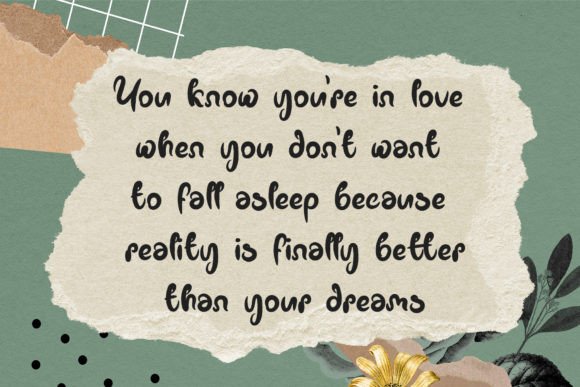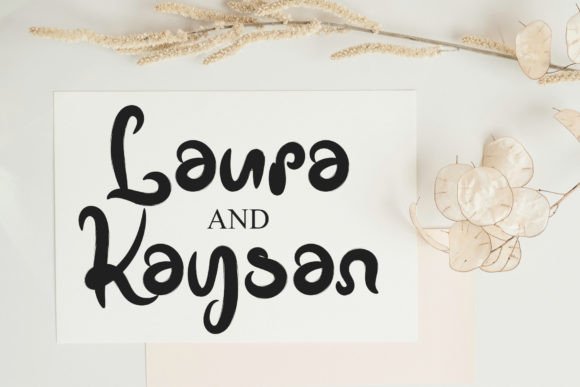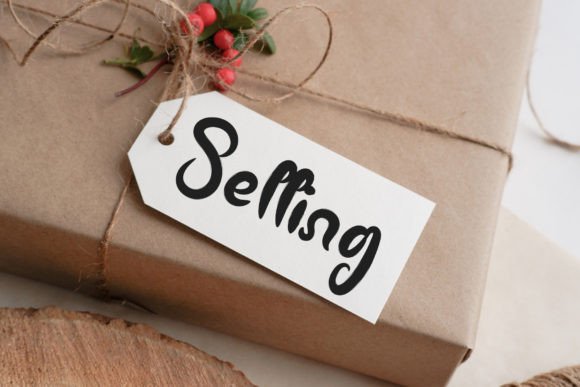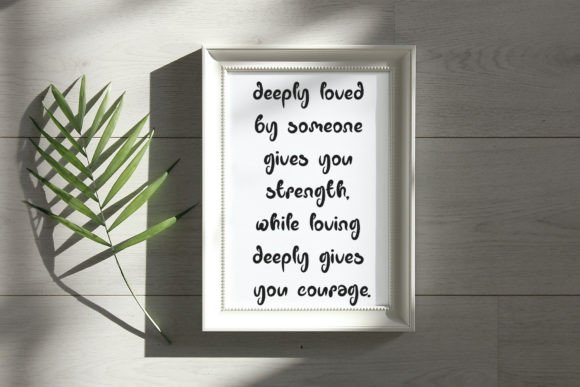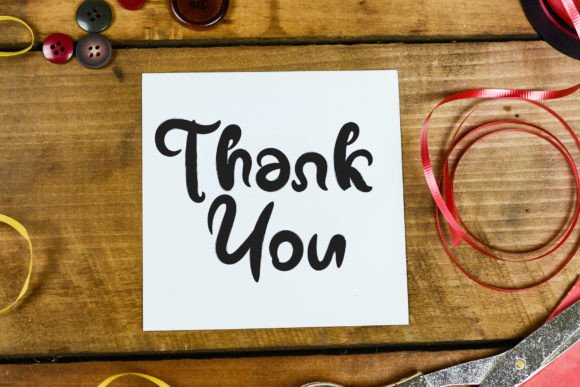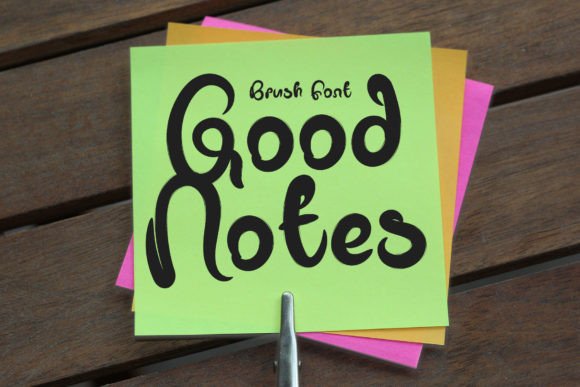
Introducing Good Notes Font: Elevate Your Designs with Elegance
Are you a designer, crafter, or DIY enthusiast looking for a beautiful display font to take your projects to the next level? Look no further than Good Notes Font! This stunning font is perfect for creating visually appealing magazines, crafts, and designs that showcase your creativity and style.
What Makes Good Notes Font So Special?
Good Notes Font is a beautifully crafted display font that boasts a unique and elegant design. Its sophisticated lines and curves make it an ideal choice for a wide range of projects, from fashion magazines and craft tutorials to social media graphics and DIY blogs. With Good Notes Font, you can add a touch of sophistication and glamour to your designs, setting them apart from the rest.
Key Features of Good Notes Font
- Beautiful Display Font: Good Notes Font is designed to make a statement, with a bold and eye-catching design that’s sure to grab attention.
- Perfect for Magazines and Crafts: Whether you’re creating a fashion magazine, a craft tutorial, or a DIY blog, Good Notes Font is the perfect choice.
- Elegant and Sophisticated: With its sleek lines and curves, Good Notes Font adds a touch of elegance and sophistication to any design.
How to Use Good Notes Font in Your Designs
Tips for Using Good Notes Font
- Use it as a Header Font: Good Notes Font is perfect for use as a header font, adding a touch of elegance and sophistication to your designs.
- Experiment with Different Colors: Good Notes Font looks great in a variety of colors, so don’t be afraid to experiment and find the perfect hue for your design.
- Pair it with Other Fonts: Good Notes Font pairs well with a range of other fonts, so feel free to get creative and find the perfect combination for your design.
Benefits of Using Good Notes Font
So why choose Good Notes Font for your designs? Here are just a few benefits of using this beautiful display font:
- Adds Elegance and Sophistication: Good Notes Font adds a touch of elegance and sophistication to any design, making it perfect for projects where you want to make a statement.
- Versatile: Good Notes Font is versatile and can be used in a wide range of projects, from magazines and crafts to social media graphics and DIY blogs.